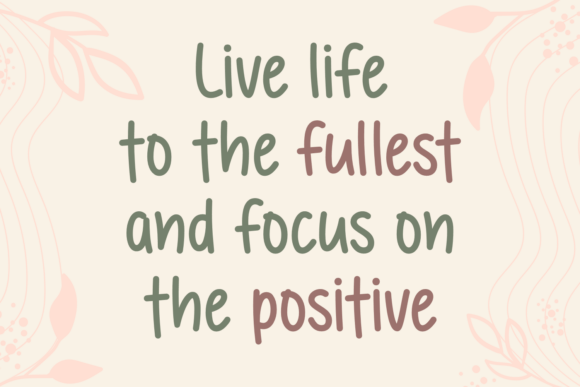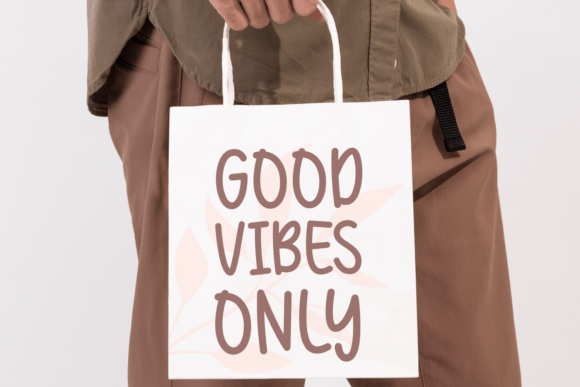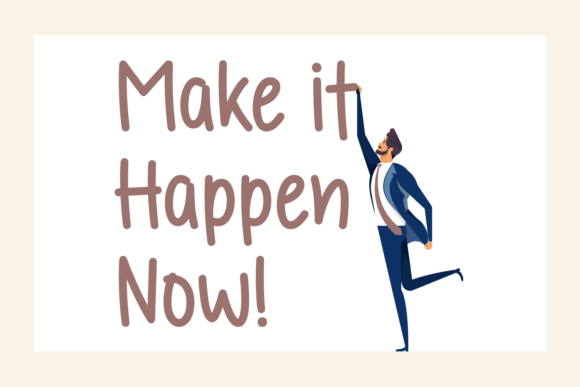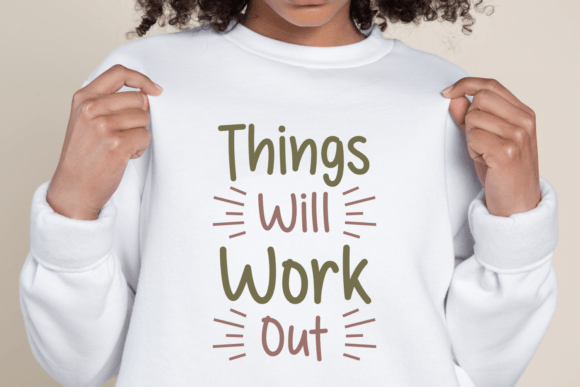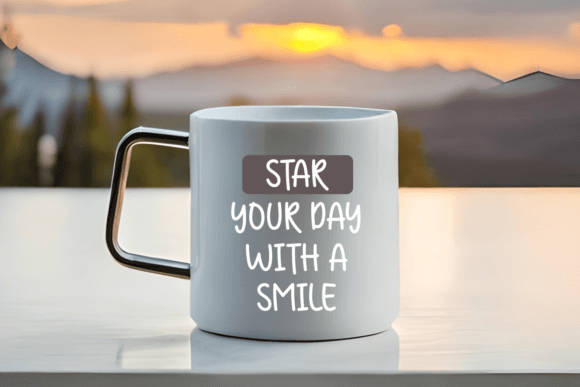
Introduction to Royal Beauty Font
Imagine the moment when you’re brainstorming ideas for a special event, and you stumble upon the perfect invitation design. The words flow effortlessly, the layout is perfect, and the font adds that extra touch of elegance. That’s exactly what happens when you incorporate the Royal Beauty Font into your design. This charming, casual handwritten font exudes warmth and sophistication, making it a must-have for any creative project.
As a designer, you’re always on the lookout for high-quality design resources that can elevate your work and make it stand out. The Royal Beauty Font is one such treasure that offers a unique blend of elegance and approachability. With its flowing curves and smooth strokes, it’s perfect for creating invitations, logos, and branding that exude personality and style.
Key Features of Royal Beauty Font
- High-quality design: The Royal Beauty Font is designed to provide a sophisticated and elegant look for your creative project.
- Unique script style: The Royal Beauty Font features a unique script style, making it ideal for wedding invitations, birthday cards, and other creative projects.
Honest Review: Royal Beauty Font
I recently stumbled upon the Royal Beauty Font, a free download that caught my eye with its elegant and refined design. As a designer, I was excited to explore this new design resource and see if it would be a great fit for my creative project.
Here are some things that worked well: ✨
- High-quality glyphs and characters, making it perfect for any design project
- Transparent background, which gives me flexibility in designing without any visual distractions
However, I did encounter some limitations: ⚠️
- Only available in a limited range of font styles, which may not be suitable for projects requiring multiple font variations
Overall, I was impressed with the Royal Beauty Font’s elegant design and high-quality features. While it may have some limitations, it’s still a valuable design resource for any creative project. With a bit more development, it could potentially become a go-to font for designers looking for a refined and sophisticated look.
Use the Royal Beauty Font on a transparent background to create a beautiful, high-contrast design. Experiment with different font sizes and styles to add visual interest to your project.
The Royal Beauty Font is perfect for creating invitations, wedding stationery, and other design projects that require a touch of elegance and sophistication. It’s also great for use in branding and logo design.
The Royal Beauty Font features a unique, elegant design with a transparent background, making it perfect for adding a touch of sophistication to any creative project. The font is also designed to be highly legible, with clear lines and a consistent style.